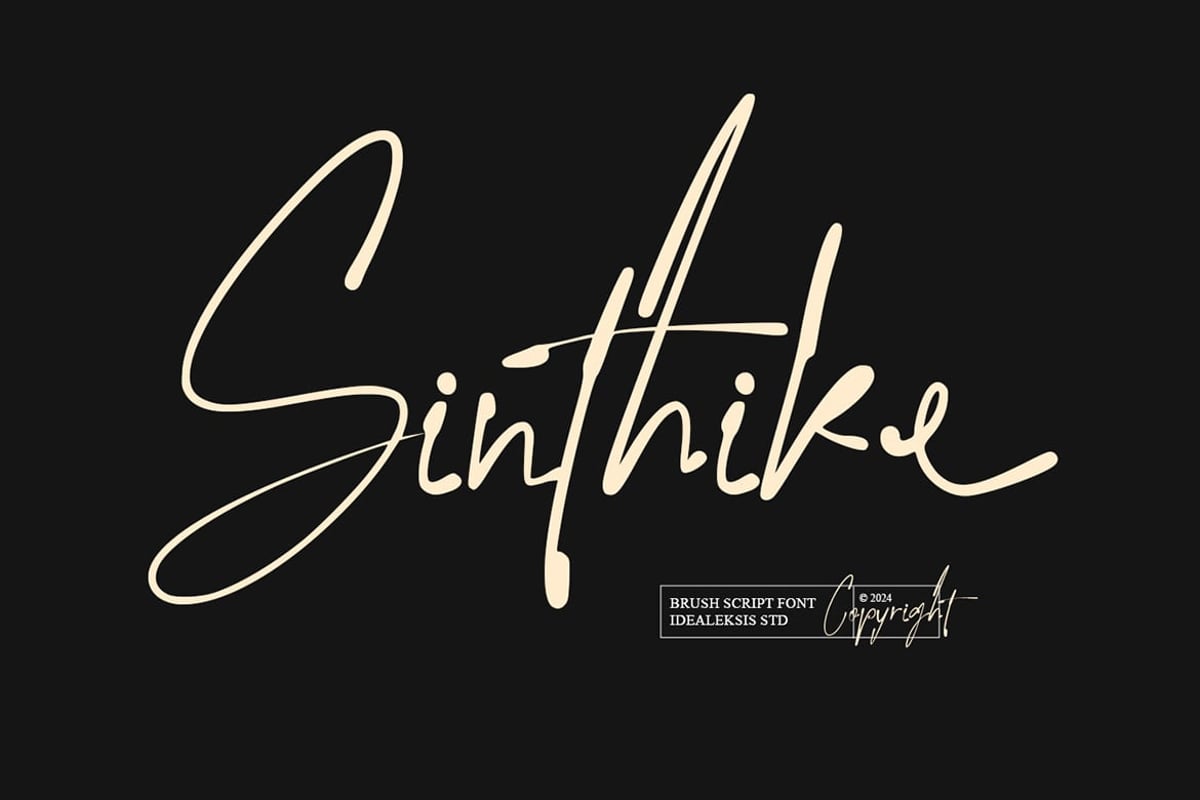
Sinthike - Script Font
Elevate your designs with Sinthike's sophisticated brush script elegance and natural handwritten charm.
This refined typeface features flowing strokes and graceful letterforms that bring modern sophistication to every project. The natural handwritten aesthetic creates an authentic, personal touch while maintaining professional polish.
Perfect for wedding invitations, branding projects, fashion campaigns, social media graphics, distinctive logos, and personalized signatures. Sinthike adds a touch of contemporary elegance that makes your designs stand out.